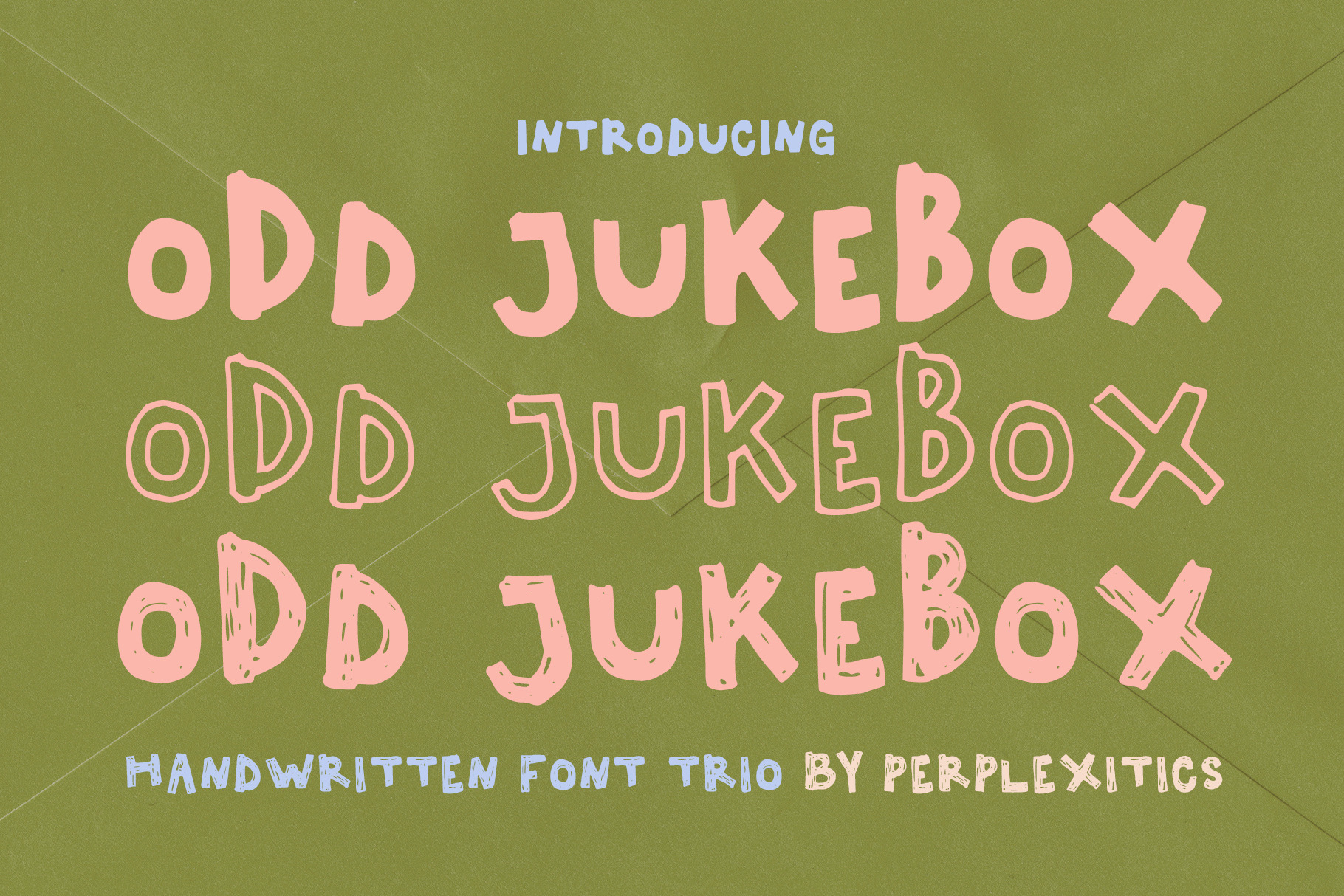
Odd Jukebox Hand-drawn Font Trio
Odd Jukebox is a playful and expressive font trio that brings a vintage, hand-drawn aesthetic to your designs. With three distinct styles - Outlined, Black, and Scribble - this versatile collection offers endless possibilities for creating eye-catching headlines, logos, posters, and more.
Odd Jukebox Font Trio is packed with everything you need, including uppercase letters, numbers, and punctuation. Multilingual support.